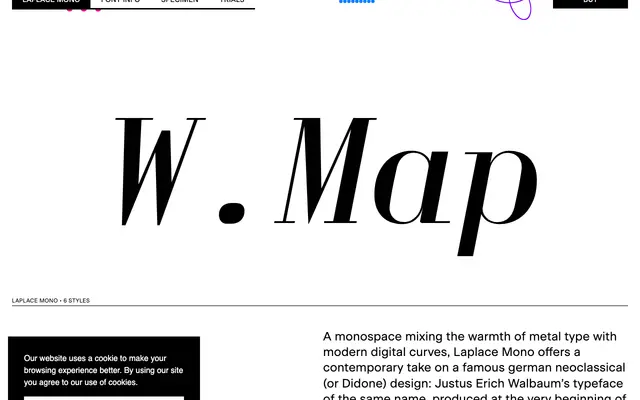
Laplace Mono
A fixed-width interpretation of Walbaum's early 19th-century neoclassical design, translating Didone contrast and warmth into a contemporary monospaced format across six styles.
Drawing directly from Justus Erich Walbaum's German neoclassical typeface, it carries the high stroke contrast and refined character of Didone type into a fixed-width structure. Three weights from Light to Bold each include an italic, giving the family enough range for both running text and display use. The blend of metal-type warmth with digital precision makes it an unusual choice in a category where most designs favour neutrality.
A monospaced typeface explicitly derived from Walbaum's neoclassical Didone design, combining high-contrast letterforms characteristic of the Didone tradition with fixed-width spacing for digital use.